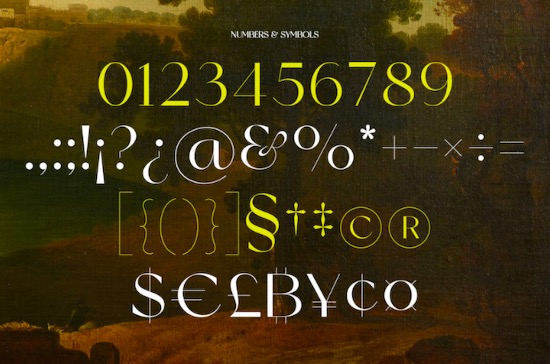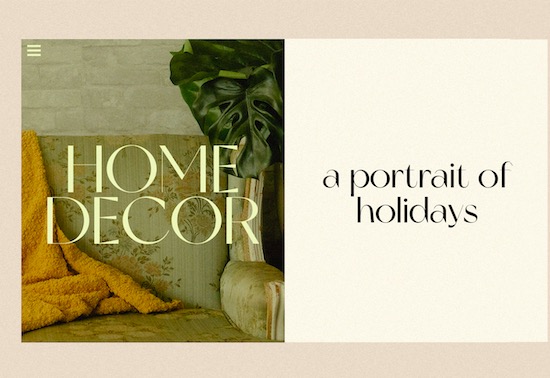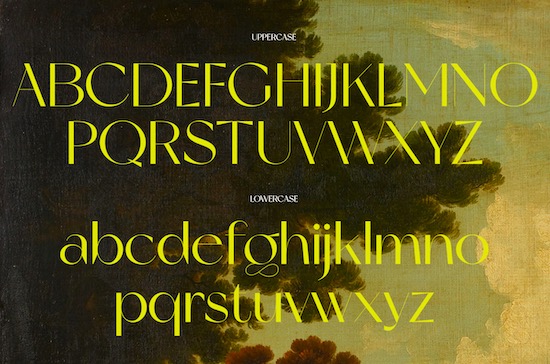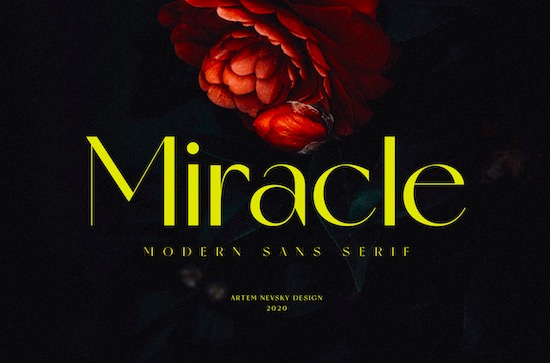
Miracle font, it’s a great modern Sans serif font from Nevsky Type. This modern fresh font is a neutral but attention-grabbing design tool for your design ideas. This font conjures up a unique method for any ingenious project.
Miracle is made from a chic sans typeface, this font going to make your every design more elegant, colorful, fun, and cute. This font is perfect for invitations, logos, headings, signs, mugs, shirts, children’s designs, blogs, brandings, and so on.
Miracle Decorative Font
Miracle Font